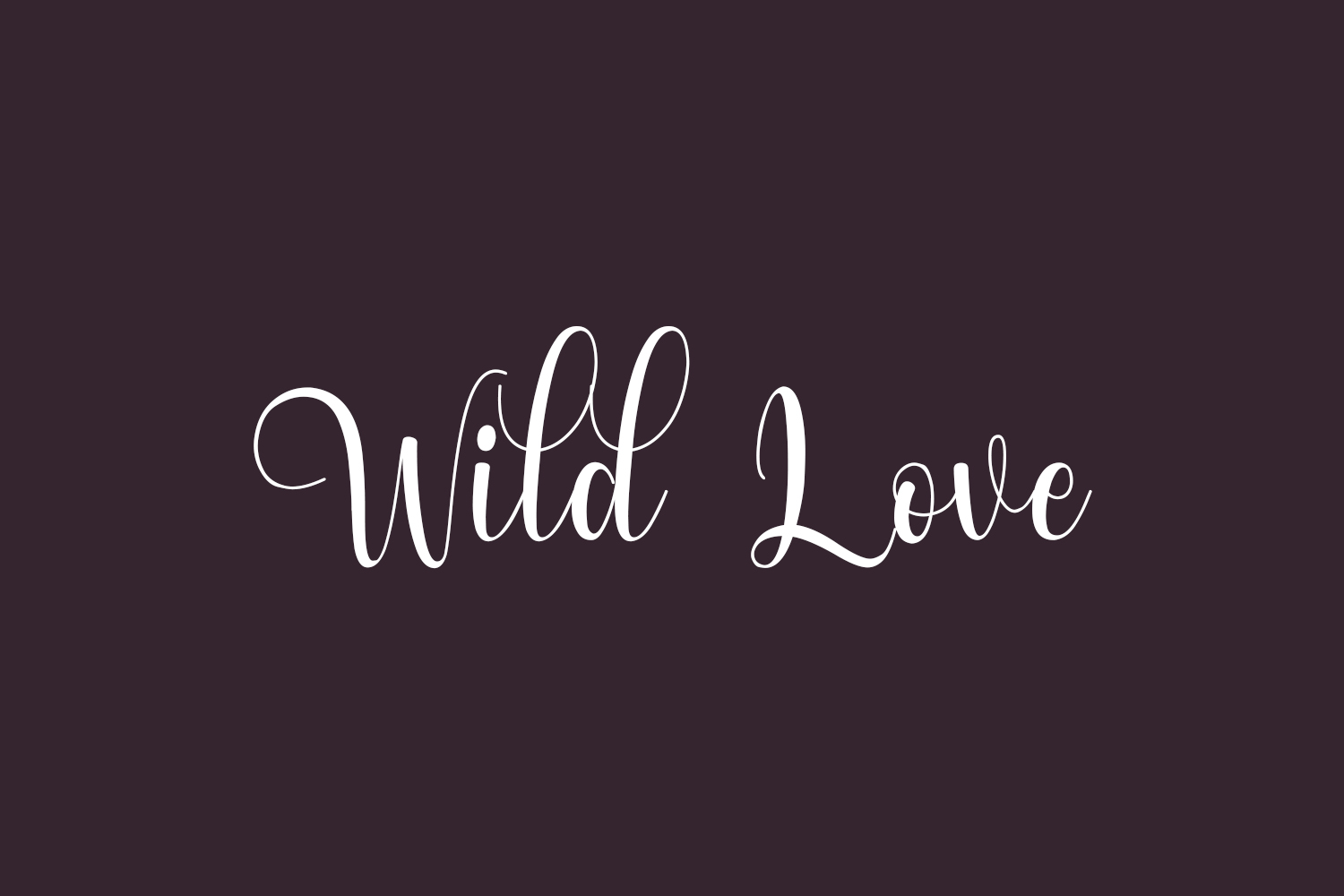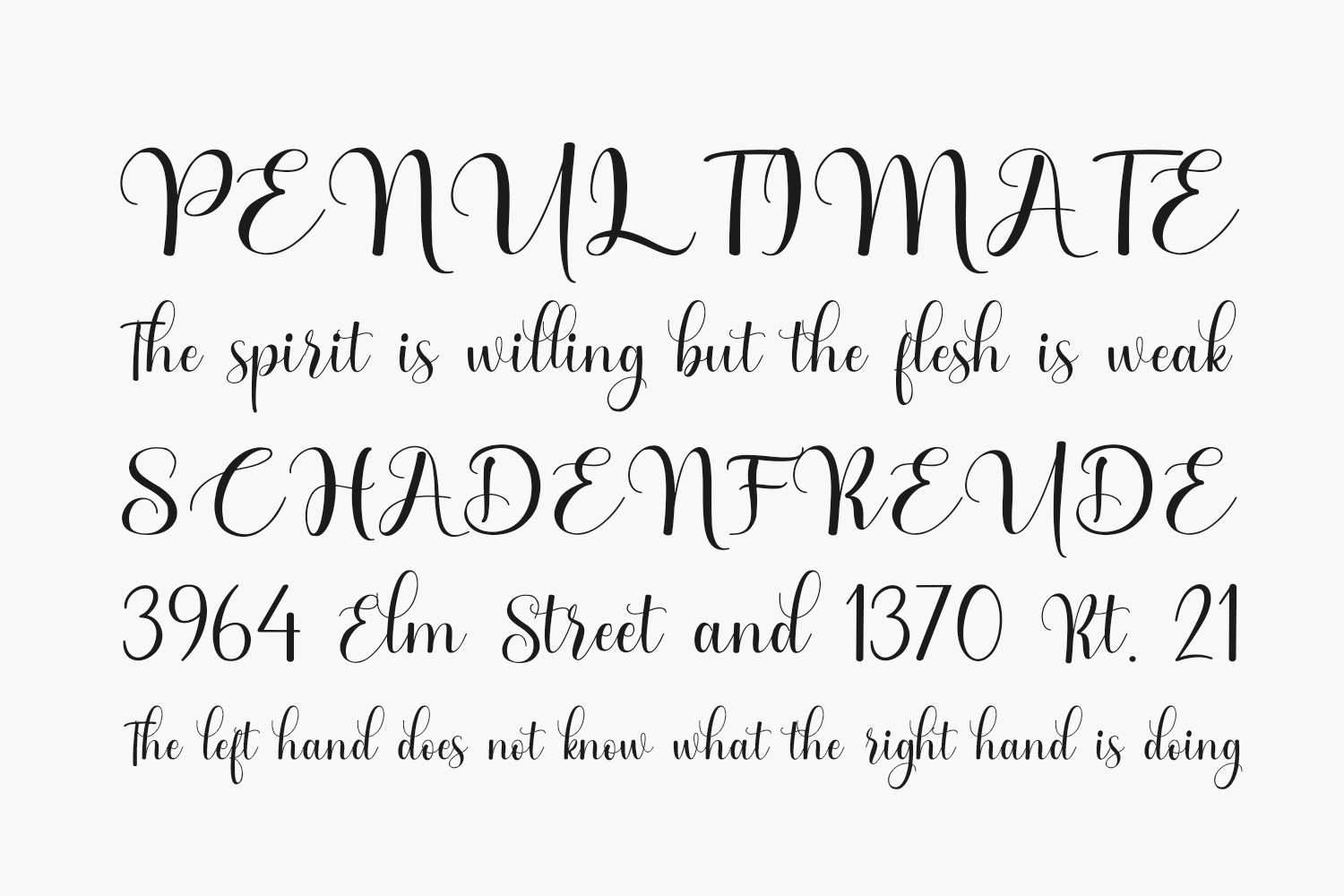
Wild Love Free Font is a beautiful font that is dominated by a symbol of love at the beginning and end of the swash. It looks beautiful on a variety of designs requiring a personalized style, such as wedding invitations, thank you cards, weddings, greeting cards, logos, and so on. Wild Love Free Font was designed by MJB Letters and is free for personal use only. Please purchase the full version for commercial use.